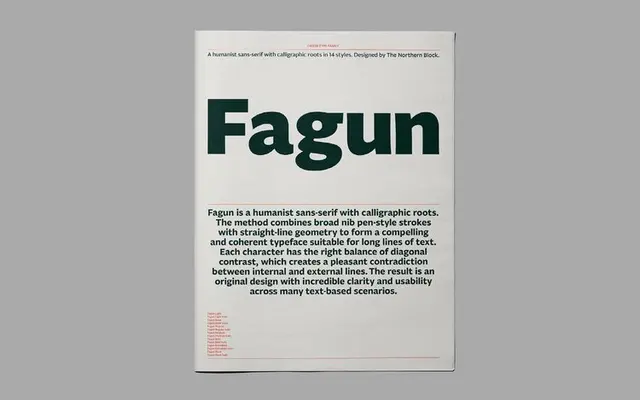
Fagun Newspaper Specimen
The Northern Block · 2022
A humanist sans-serif with calligraphic roots, available in 14 styles across 7 weights with italics, covering Western, Southern and Central European languages.
Fagun draws on calligraphic tradition to produce a humanist sans suited to text-heavy settings, with 7 weights and matching italics giving considerable range across editorial and body copy work. Its name references Fagin from Dickens' Oliver Twist, a conceit extended across a 44-page printed newspaper specimen built around Dickensian themes. Language support spans Western, Southern and Central Europe, and the family includes an extensive set of OpenType features.
Described explicitly as a humanist sans-serif with calligraphic roots, placing it firmly in the humanist sans subcategory distinguished by organic stroke modulation and pen-influenced letterforms.